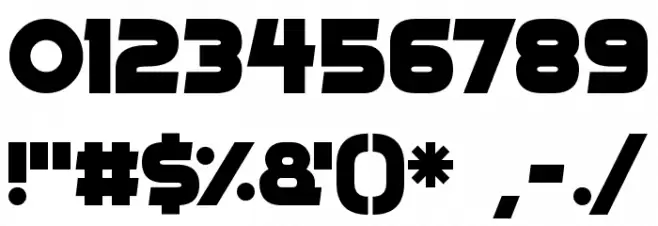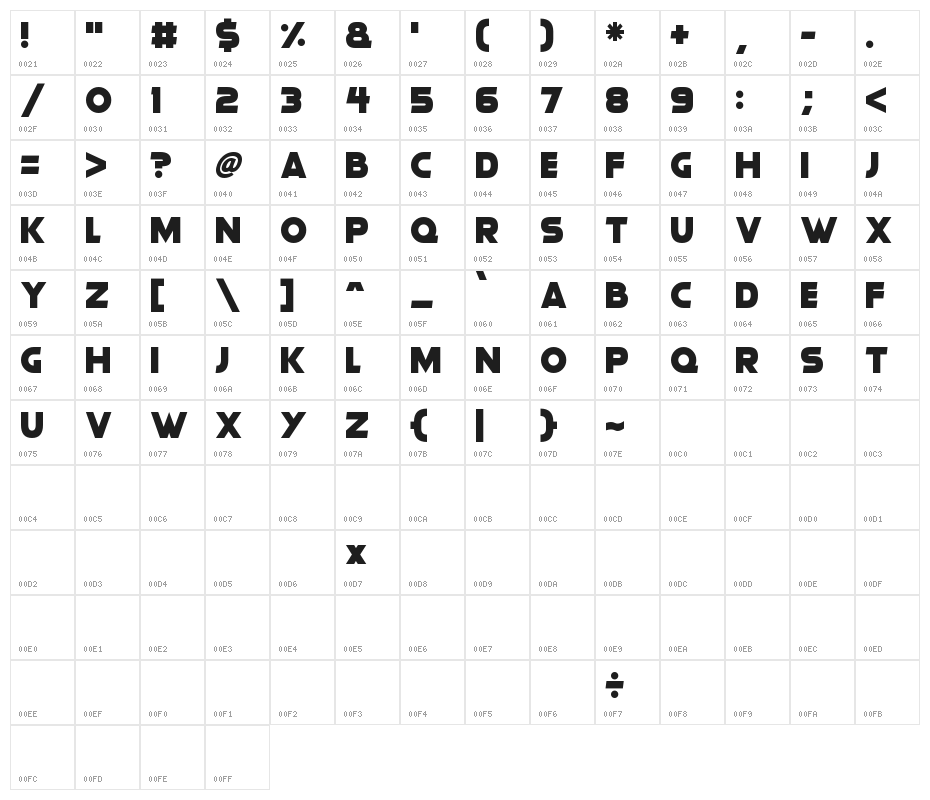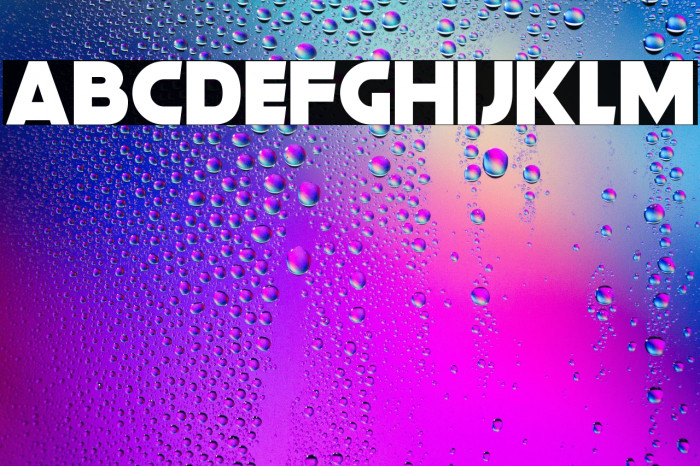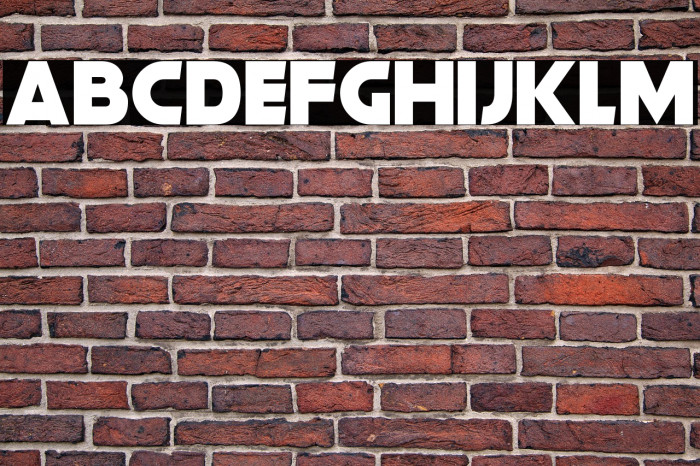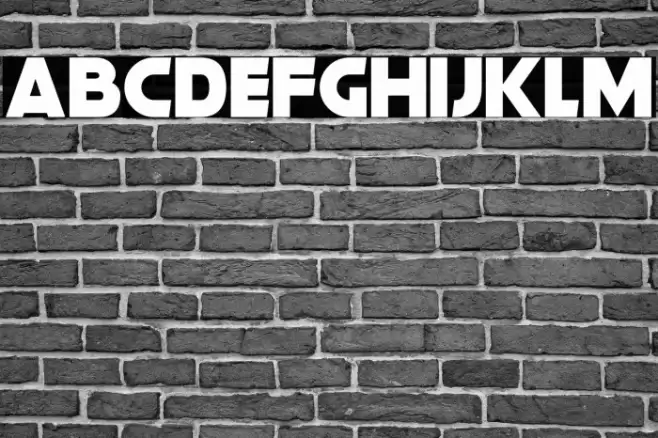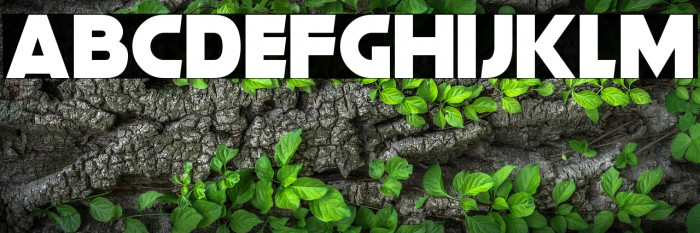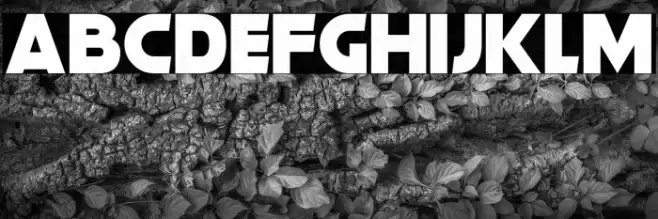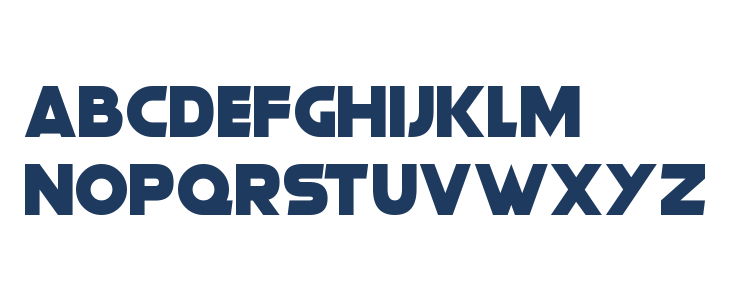
Gorgeous Grafix Font
Gorgeous Grafix Description
This font features bold, geometric letterforms with a strong presence. The characters are designed with a modern aesthetic, showcasing clean lines and a uniform stroke width. The uppercase and lowercase letters maintain a consistent style, while the numerals and special characters complement the overall design. The font's structure is solid and impactful, making it suitable for attention-grabbing headlines and titles. Its boldness and clarity ensure readability even at smaller sizes, while the geometric shapes add a contemporary touch.